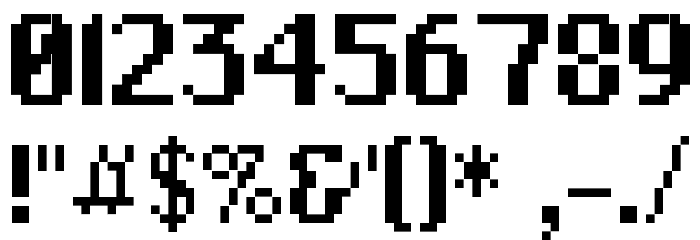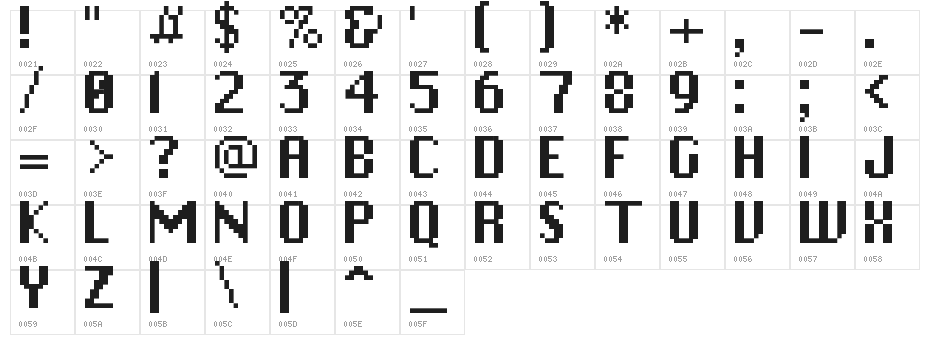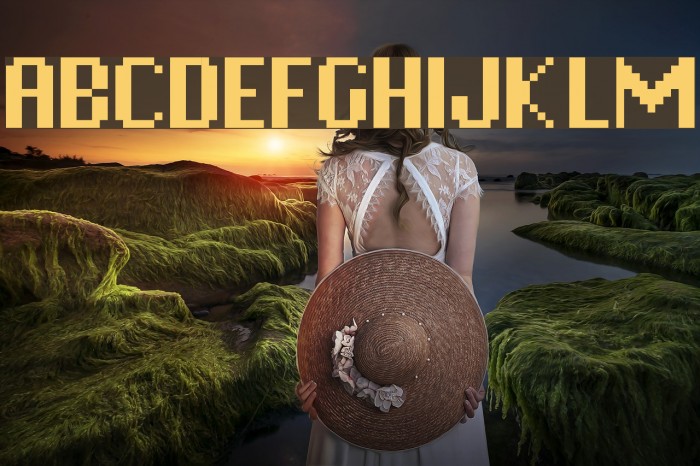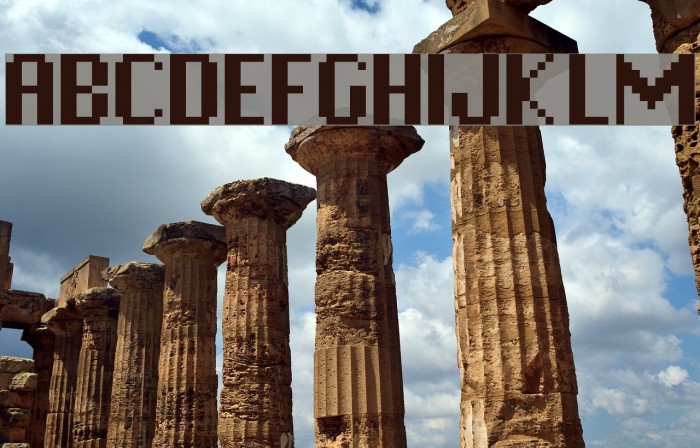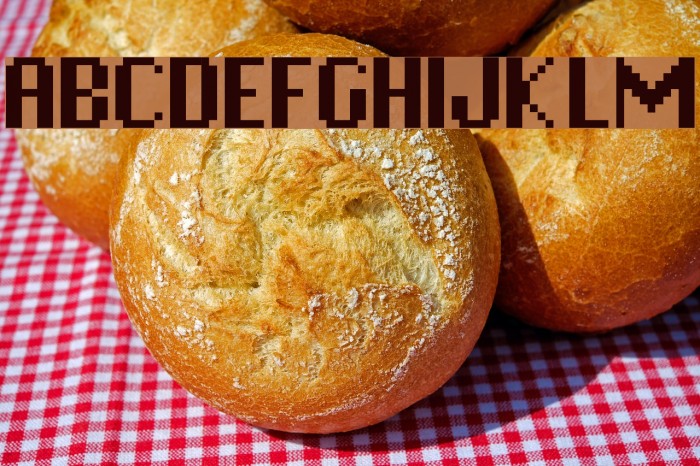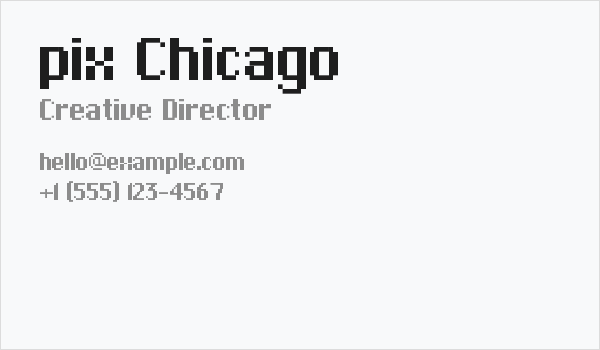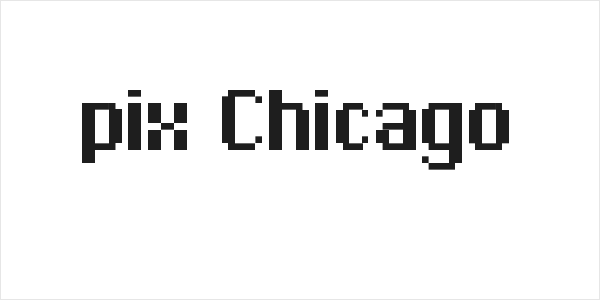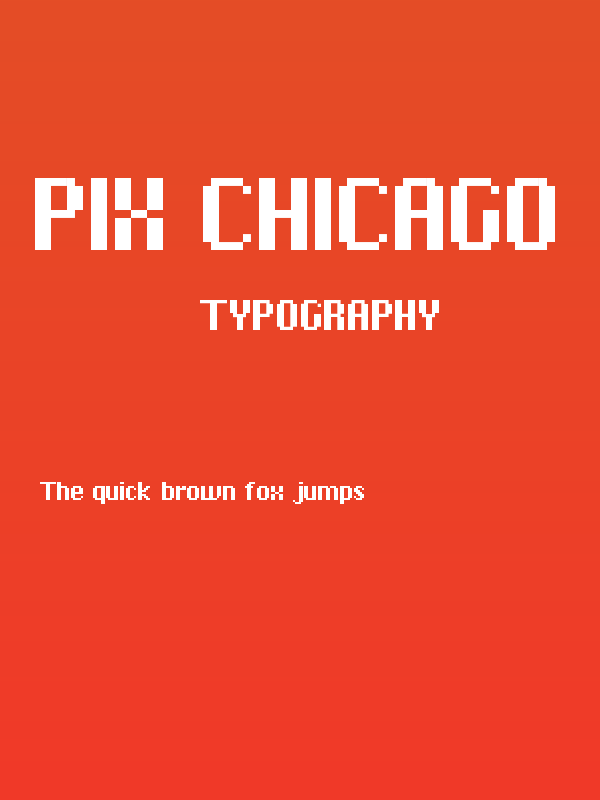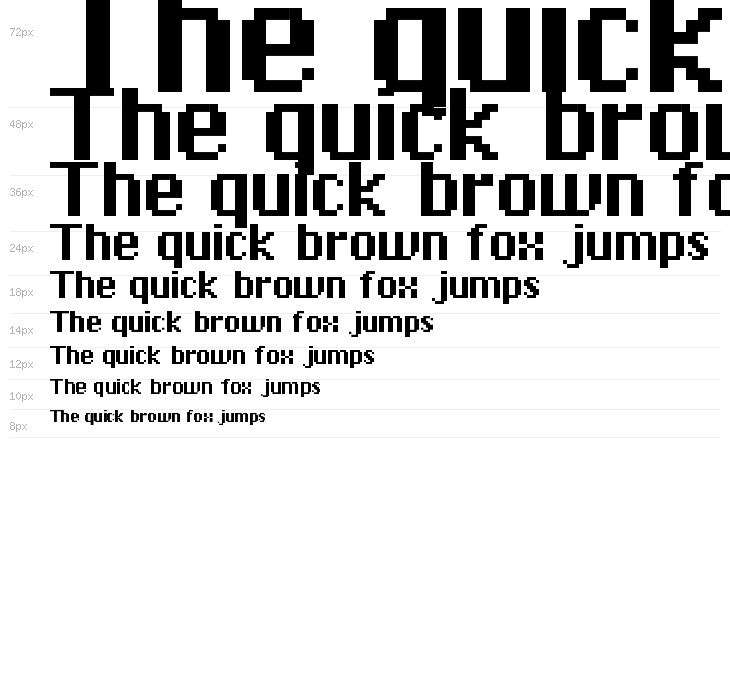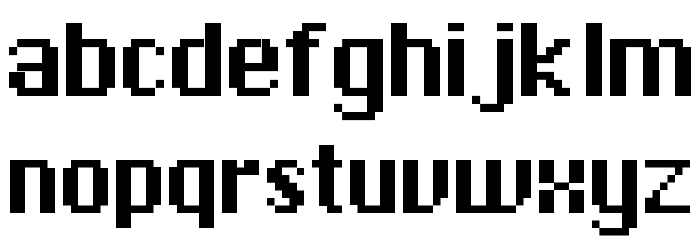
pix Chicago Font
pix Chicago Description
This font features a pixelated, retro style reminiscent of early computer graphics and video games. Each character is constructed with a blocky, grid-like appearance, emphasizing a digital aesthetic. The uppercase and lowercase letters maintain a consistent height, contributing to a uniform look. The numerals and special characters follow the same pixelated design, ensuring a cohesive appearance across all glyphs. This font's simplicity and clarity make it ideal for digital displays and projects that aim to evoke a sense of nostalgia for the early days of computing.
| Use Case | Headlines, Logos, Digital displays |
| Proposed Projects | Ideal for retro video games, digital art projects, and designs that require a nostalgic, early computing feel. |